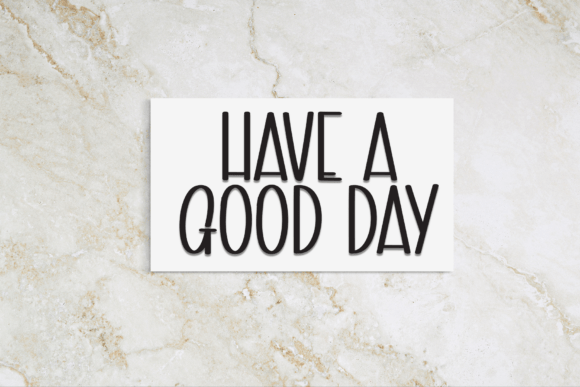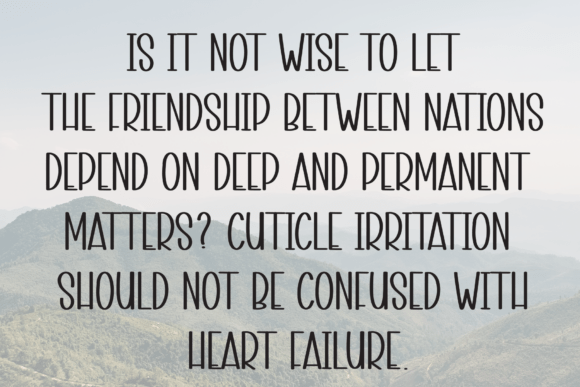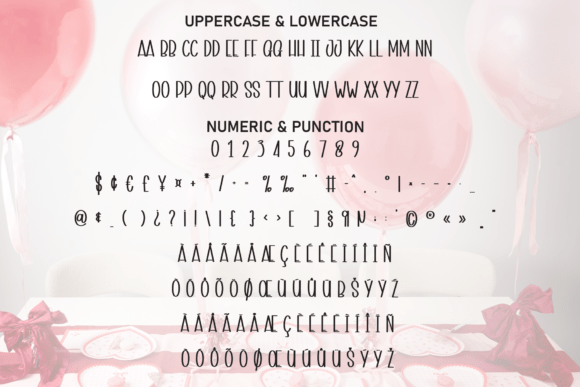
Introduction to Pink Cutes Font
Have you ever found yourself stuck on a creative project, searching for that perfect touch of whimsy to bring your design to life? You know, that special something that makes your artwork stand out and leaves a lasting impression on your audience? Well, you’re in luck because today we’re introducing the adorably inviting Pink Cutes Font – a delicately sweet and amiably charming handwritten display font that’s sure to add that extra dash of joy to any design.
Whether you’re working on a wedding invitation, a lovingly crafted card, or any other project that needs a touch of magic, the Pink Cutes Font is an absolute game-changer. Its playful spirit and high-quality design make it the perfect resource for designers looking to add a little extra something special to their work.
Key Features of Pink Cutes Font
- Pink Cutes Font is designed to be highly legible, even at small font sizes, making it an excellent choice for creative projects that require a lot of text.
- This font is perfect for designers looking to add a touch of whimsy and personality to their designs, with its cute and playful style.
- Pink Cutes Font is a versatile design resource that can be used for a wide range of creative projects, from social media graphics to branding materials.
Honest Review: Pink Cutes Font
- High-quality design: The font is crisp and clear, making it suitable for both digital and print projects.
- Transparent background: This allows for easy customization and blending with other design elements.
- Cute and playful vibe: The Pink Cutes Font is perfect for projects that need a lighthearted touch.
- Limited character set: The font may not include all the characters you need for your project.
- No bold or italic variations: If you need to emphasize certain text, you may need to use a different font.
Pink Cutes Font is commonly used in:
- Birthday invitations and party decorations
- Wedding stationery and event branding
- Children’s book illustrations and educational materials